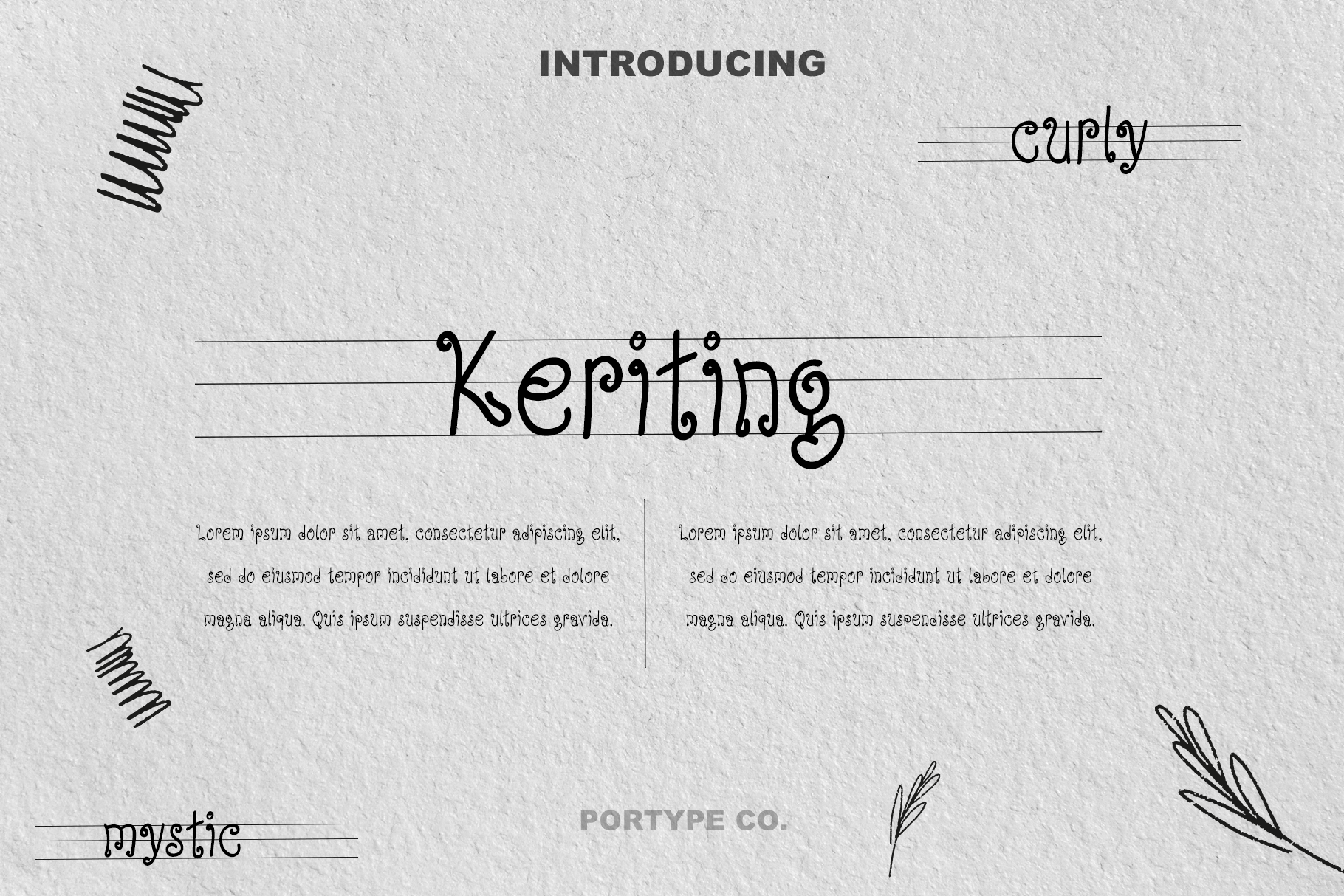
Keriting Font
Keriting fonT is a delightful and whimsical style of typography that shares many characteristics with curly fonts. This unique typeface is characterized by its playful, flowing, and intricate letterforms that resemble curls or spirals. Here's a description of the keriting font:
Elegantly Spiraled Letters: The keriting font is known for its gracefully curled letters. Each character features loops and swirls, creating an artistic and eye-catching appearance. The curves and twists in the letterforms give the text a sense of movement and liveliness.
Playful and Whimsical: This font style exudes a sense of playfulness and whimsy. It's perfect for adding a touch of joy and creativity to various design projects, such as invitations, greeting cards, posters, or branding materials.
Vintage Aesthetic: The keriting font often draws inspiration from vintage calligraphy and script fonts. It can evoke a sense of nostalgia and timelessness, making it a popular choice for projects that aim to capture a bygone era's charm.
Versatile Usage: Whether you want to create a charming wedding invitation, a cheerful logo, or an eye-catching headline, the keriting font can be adapted to a wide range of applications. It can be used to convey a sense of personality and uniqueness in your design.
Engaging Readability: Despite its intricate curls and flourishes, the keriting font is designed to be legible and user-friendly. It strikes a balance between artistic expression and clarity, making it suitable for both decorative and functional purposes.
Endless Variations: Keriting fonts come in various styles and sizes, allowing for diverse creative possibilities. Some variations may feature extra embellishments, swashes, and alternates, providing designers with even more design choices.
Expressive Typography: The keriting font is a powerful tool for expressing emotion and personality through text. It can make your words dance with joy or create an air of enchantment and wonder in your designs.
In summary, the keriting font is a captivating and expressive typeface that shares similarities with curly fonts but is distinguished by its elegant, spiraled letterforms. Its playfulness, vintage charm, versatility, readability, and expressive potential make it a fantastic choice for adding a touch of artistry and whimsy to your design projects. Whether you're designing for print or digital media, the keriting font is a charming choice that can infuse your text with character and style.